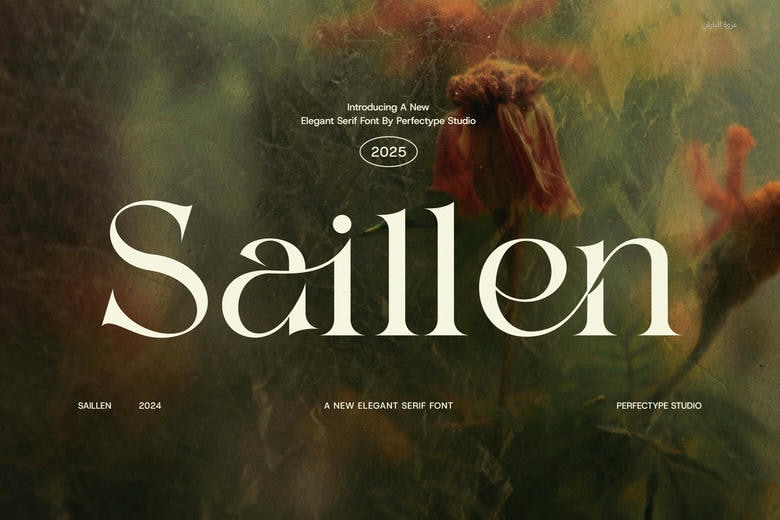
Saillen Font
Saillen is a beautifully crafted elegant serif font that captures the essence of modern sophistication and timeless style. Designed to elevate your creative projects with grace and distinction, Saillen is the perfect choice for designers seeking both versatility and refined character.
Saillen stands out with its clean lines, soft curves, and subtle contrast — giving your typography a polished, editorial look. The font’s design is enriched by a collection of unique ligatures and stylish alternate characters, allowing for customized, expressive layouts. These refined details make Saillen ideal for everything from luxury branding to modern packaging and minimalist design.
Whether you’re creating a logo, designing a magazine layout, or crafting the visual identity for a boutique, fashion label, or creative agency, Saillen brings a sense of elevated design to every application. Its harmonious letterforms are equally suited for websites, social media graphics, product labels, advertisements, and high-end stationery.
Elegant, modern, and distinctly stylish — Saillen Serif Font is more than a typeface; it’s a design tool that helps you communicate luxury, creativity, and sophistication in every project.
Saillen Serif Font